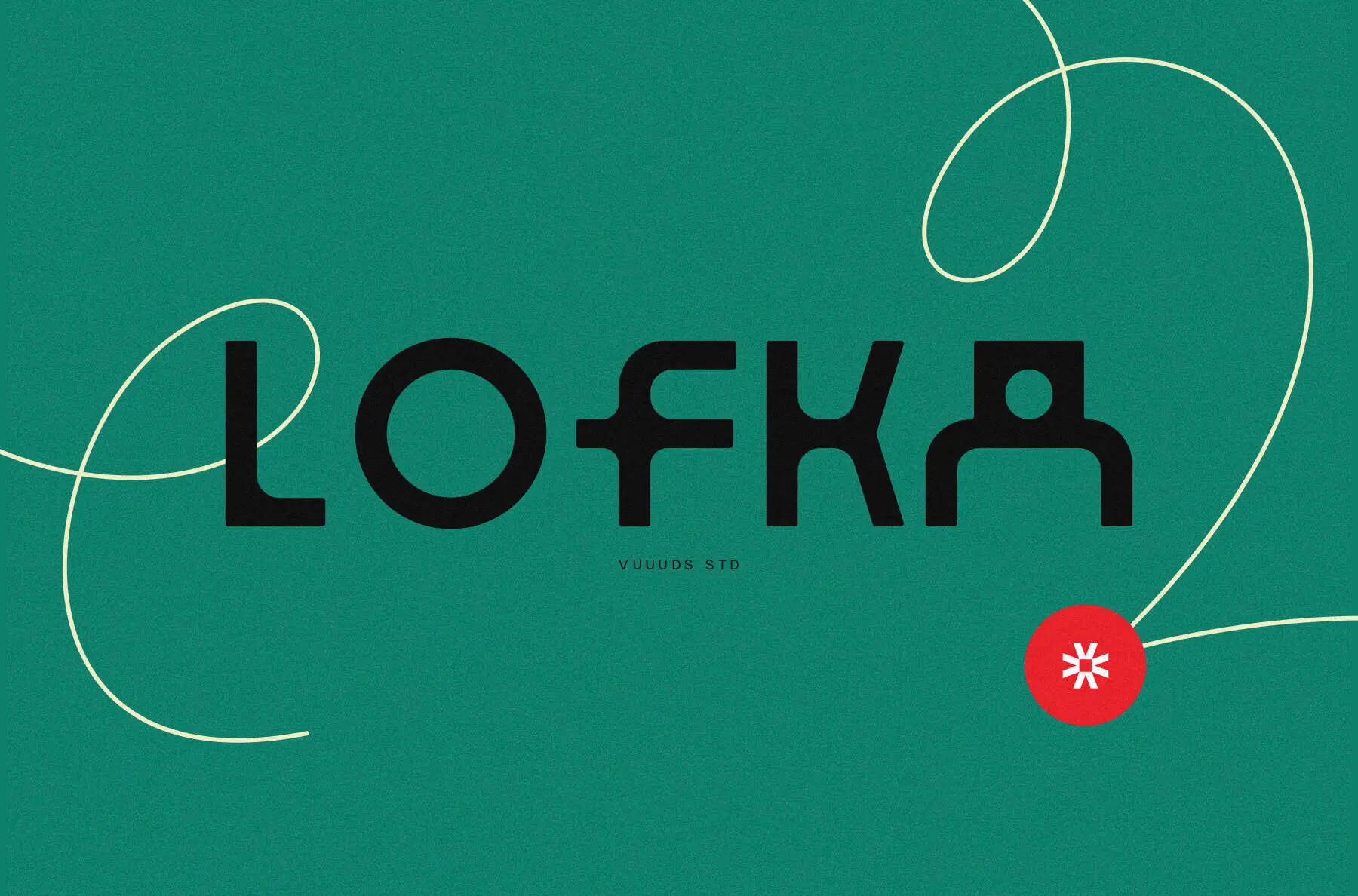
Lofka Font
Lofka
Dive into the world of modern typography with Lofka, an experimental sans serif font where each letter is a masterpiece of design. Its refined yet bold appearance makes it a perfect choice for diverse creative projects. Lofka's comprehensive support for foreign languages includes a vast array of accented and special characters. This feature enhances the font's versatility, making it a valuable asset for global branding and communication. Crafted with exquisite attention to detail, Lofka integrates both aesthetic and functional elements seamlessly. Allow your projects to stand out with its sophisticated and unique letterforms.Lofka: Contemporary Sans Serif with Unique Craftsmanship
Distinct Features